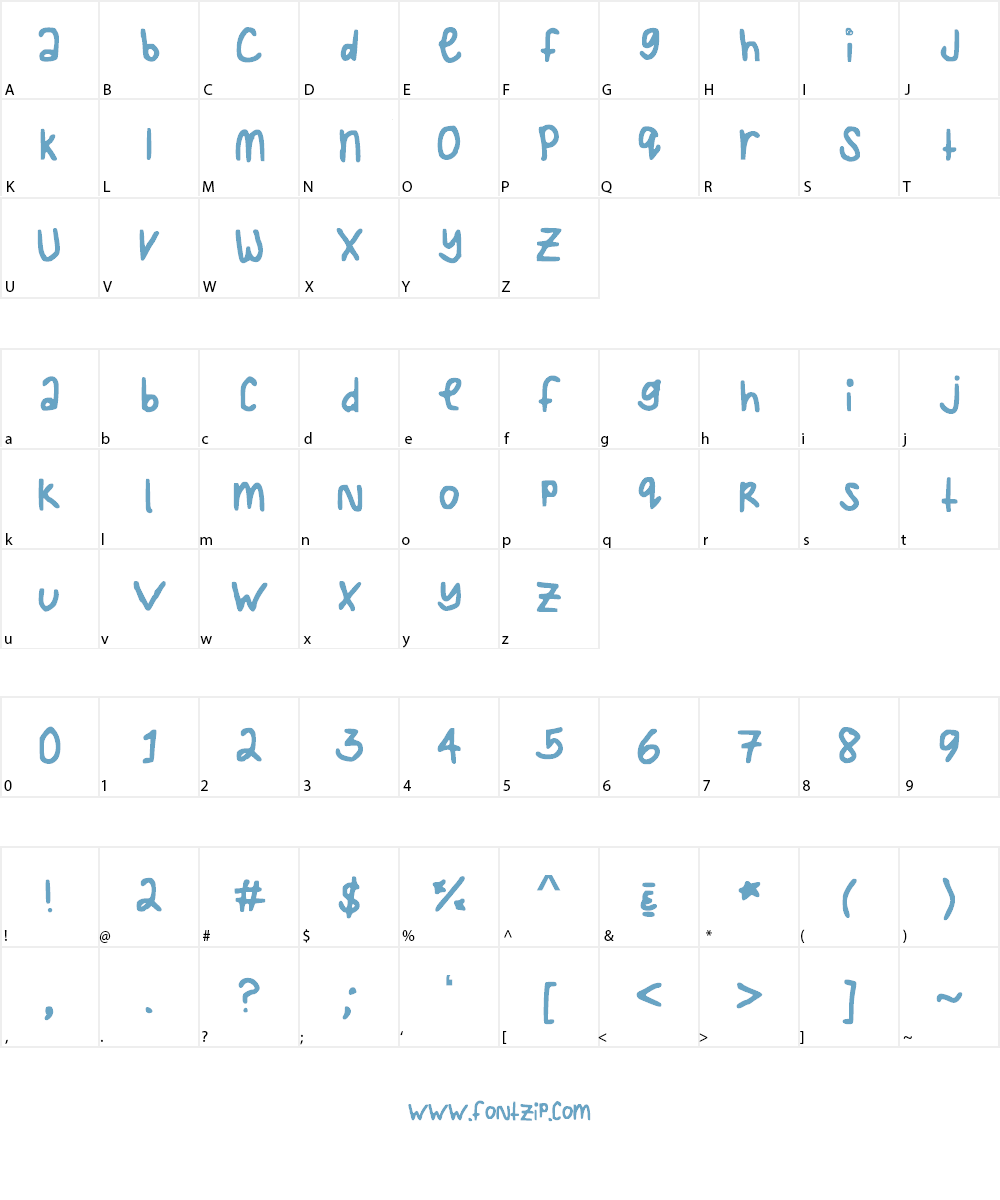
So, I realized that Love Me Again was a little fuzzy, so I made a clearer version of the font. I didn't want to update the font since, it will be named Love Me Again Two... So, enjoy the new font and tell me about your experience :3 Love, Sakura